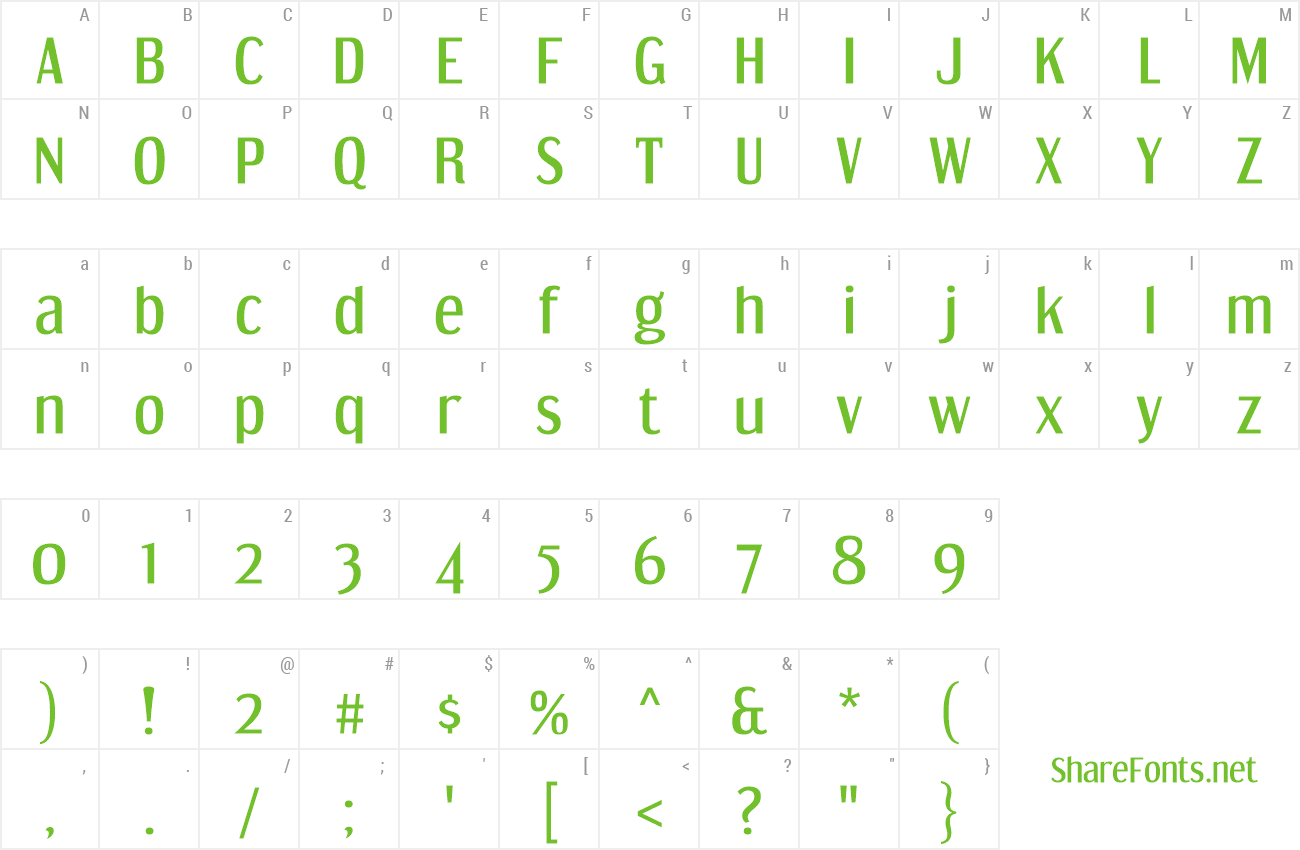
Dream Orphanage Font
Dream Orphanage Font - Web dream orphans is a headline typeface with a simple, homey feel. Web dream orphans is a headline typeface with a simple, homey feel.
Web dream orphans is a headline typeface with a simple, homey feel. Web dream orphans is a headline typeface with a simple, homey feel.
Dream Orphanage Bold Font by Typodermic Font Bros
Web dream orphans is a headline typeface with a simple, homey feel. Web dream orphans is a headline typeface with a simple, homey feel.
Dream Orphanage Extra Light Font by Typodermic Font Bros
Web dream orphans is a headline typeface with a simple, homey feel. Web dream orphans is a headline typeface with a simple, homey feel.
Dream Orphanage Font Family by Typodermic Font Bros
Web dream orphans is a headline typeface with a simple, homey feel. Web dream orphans is a headline typeface with a simple, homey feel.
Dream Orphanage font by Typodermic Fonts in 2022 Fonts, Orphanage
Web dream orphans is a headline typeface with a simple, homey feel. Web dream orphans is a headline typeface with a simple, homey feel.
Dream Orphanage Book Font by Typodermic Font Bros
Web dream orphans is a headline typeface with a simple, homey feel. Web dream orphans is a headline typeface with a simple, homey feel.
Dream Orphanage Font
Web dream orphans is a headline typeface with a simple, homey feel. Web dream orphans is a headline typeface with a simple, homey feel.
Web Dream Orphans Is A Headline Typeface With A Simple, Homey Feel.
Web dream orphans is a headline typeface with a simple, homey feel.